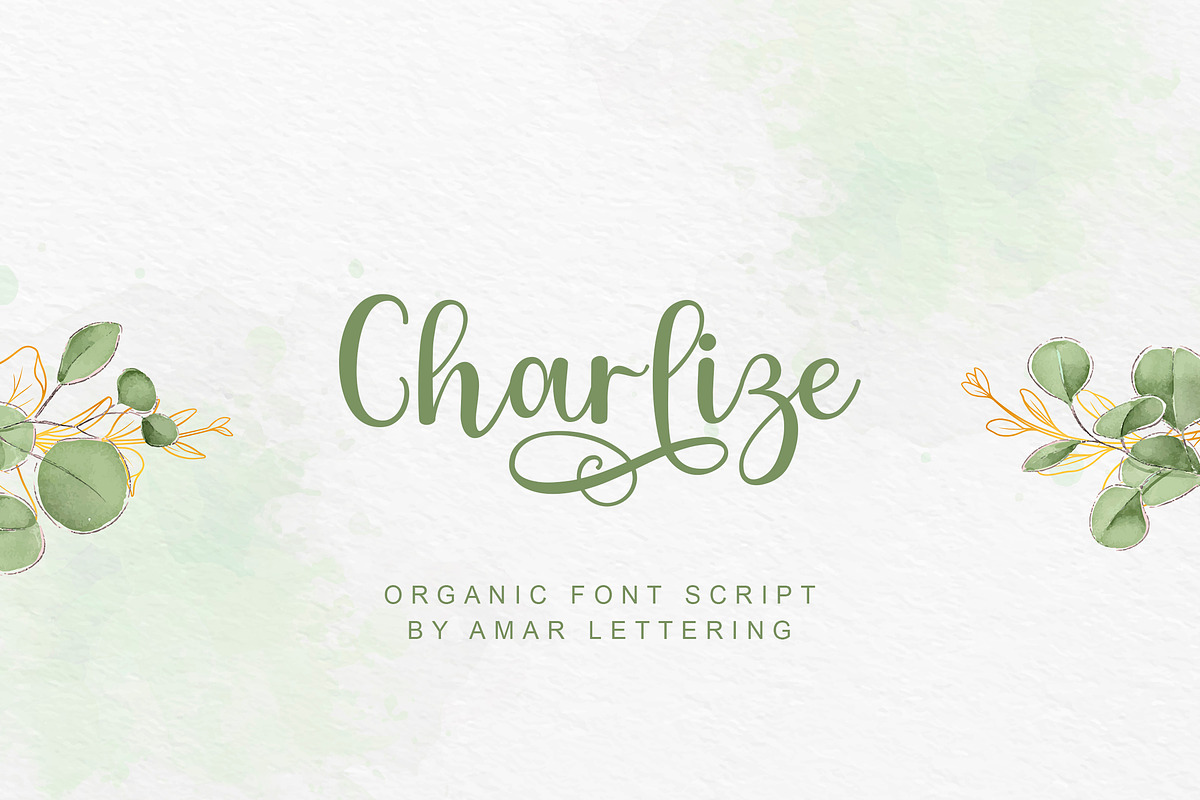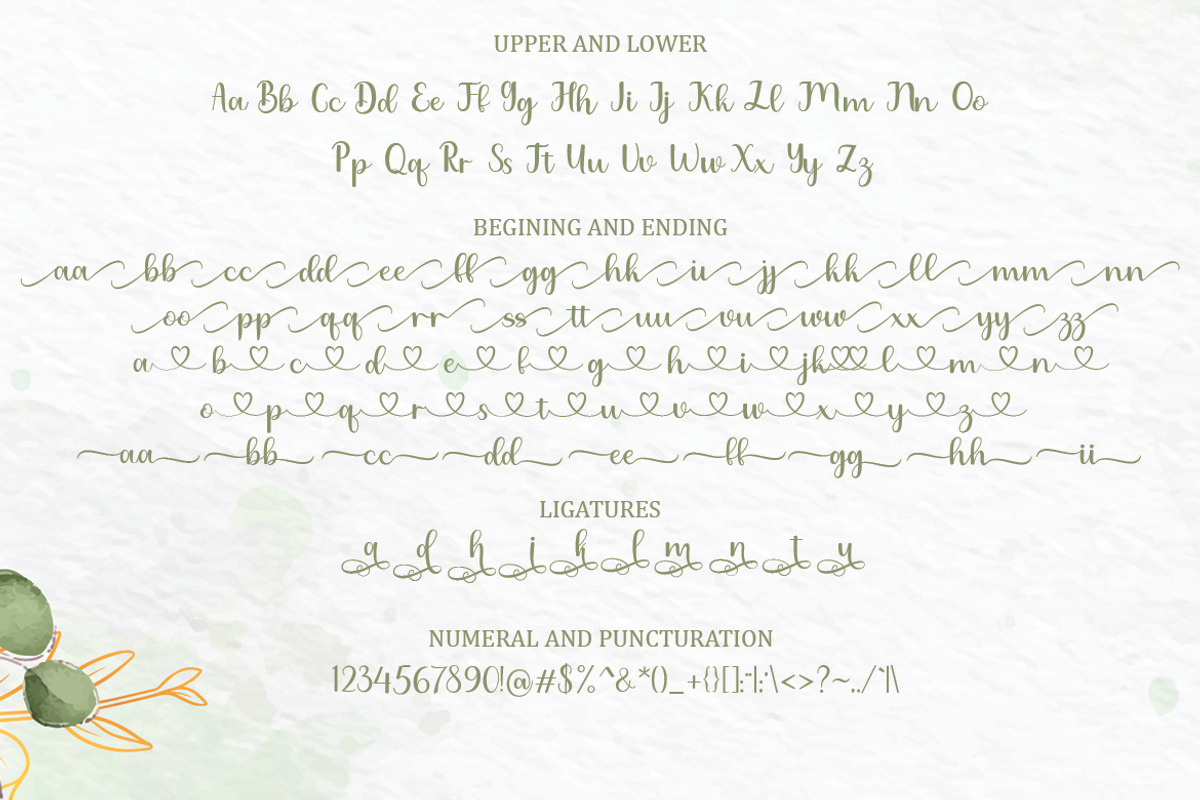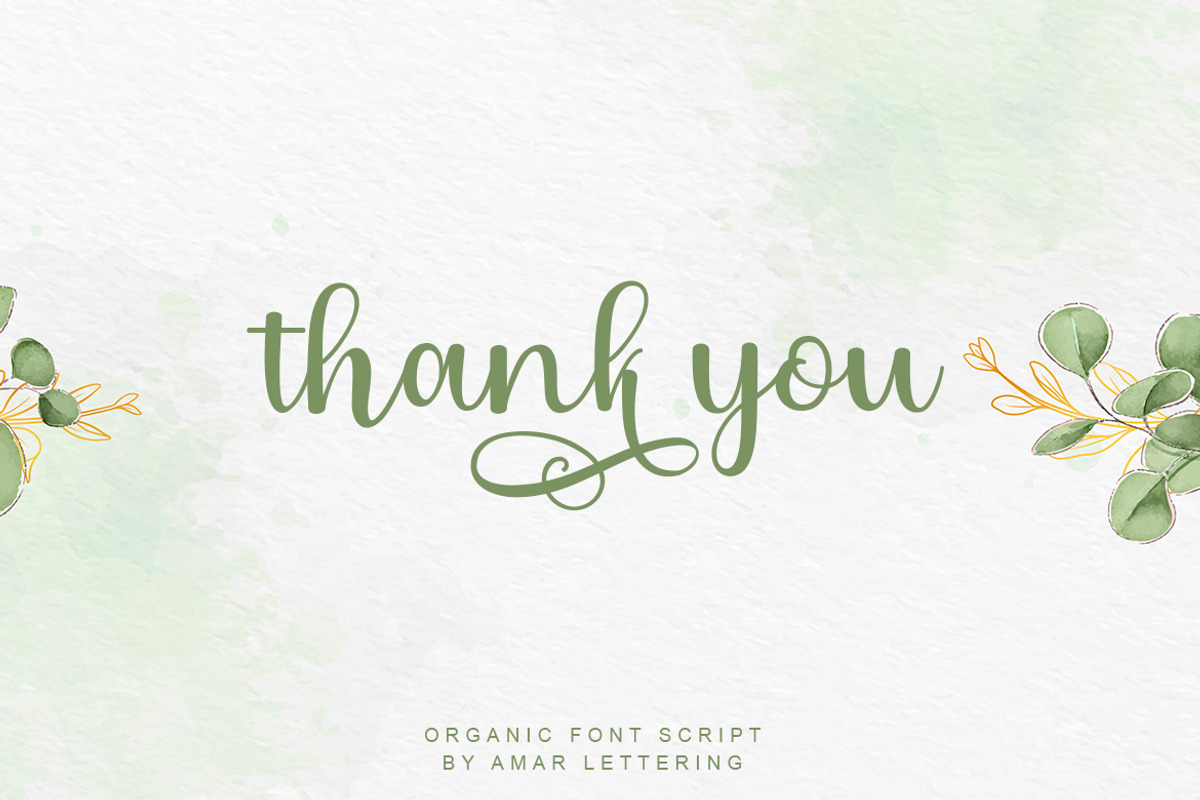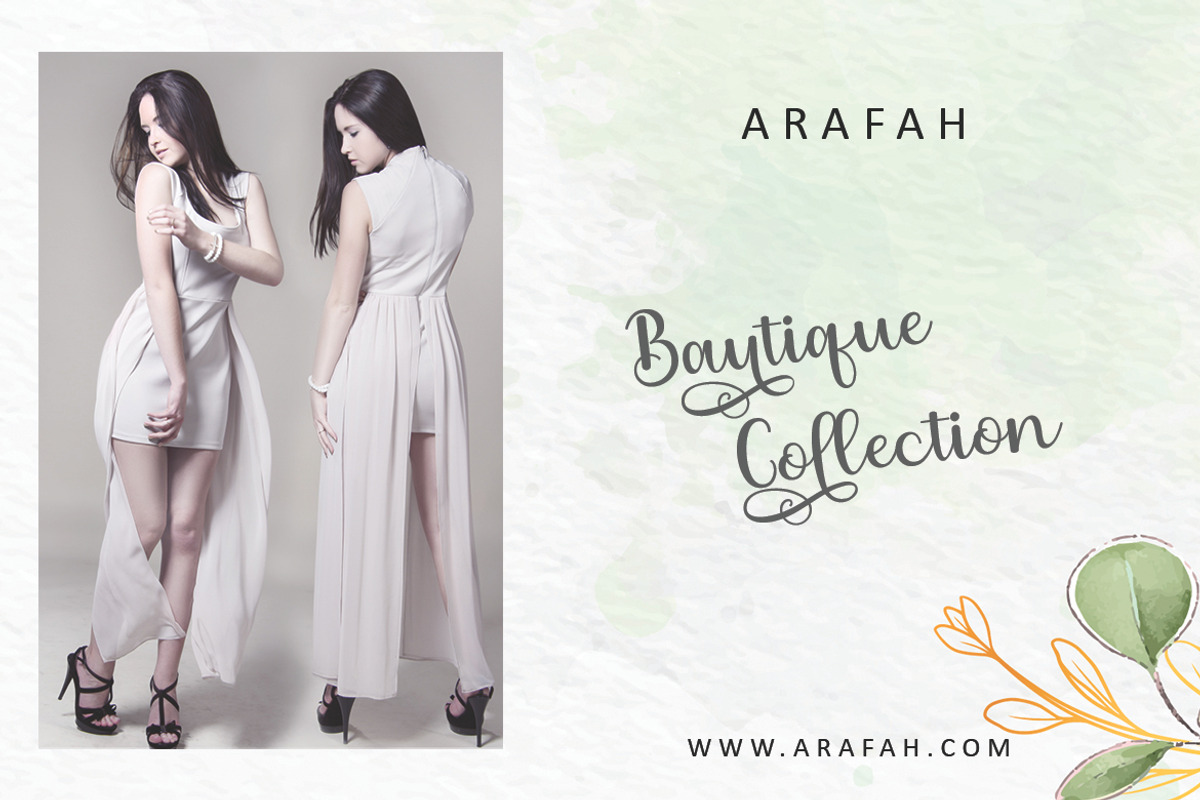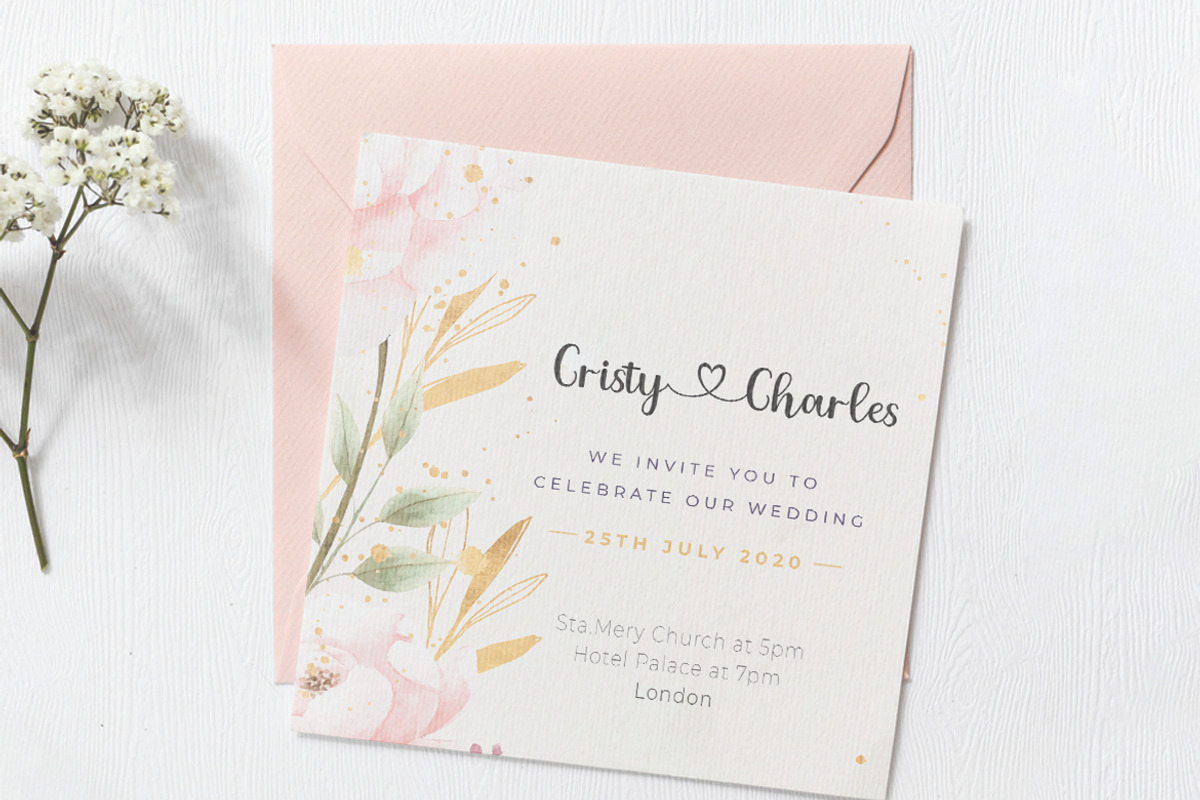
Charlize
Charlize feels equally charming and elegant. It looks stunning on wedding invitations, thank you cards, quotes, greeting cards, logos, business cards and every other design which needs a handwritten touch. This font is PUA encoded which means you can access all of the glyphs and swashes with ease! It features a varying baseline, smooth lines, gorgeous glyphs and stunning alternates.